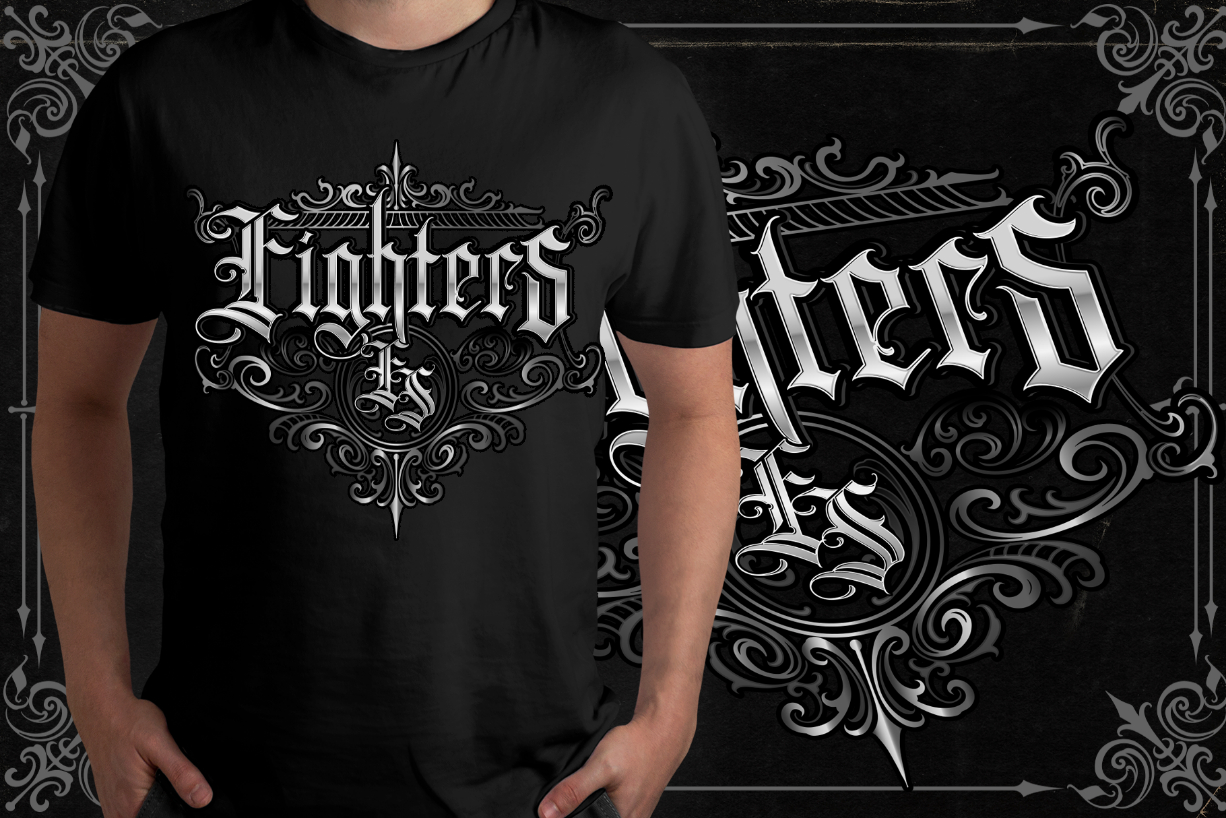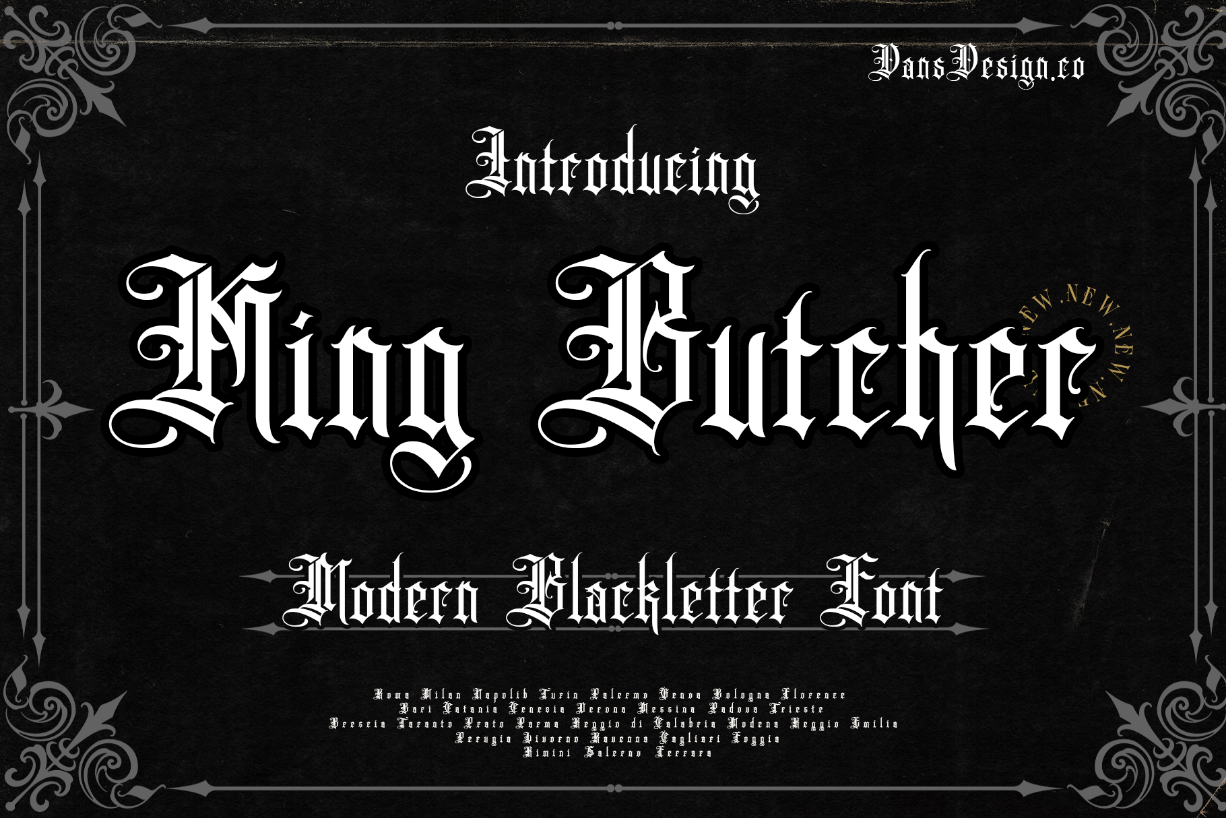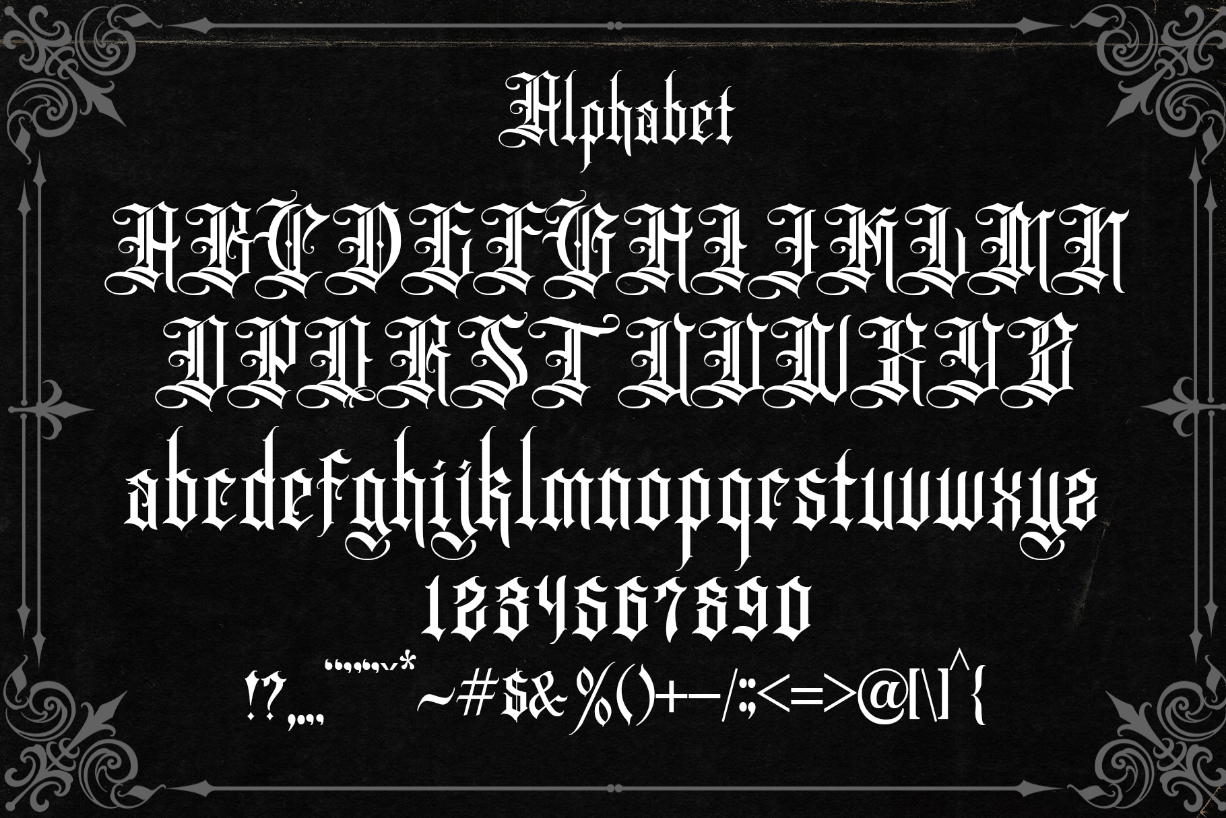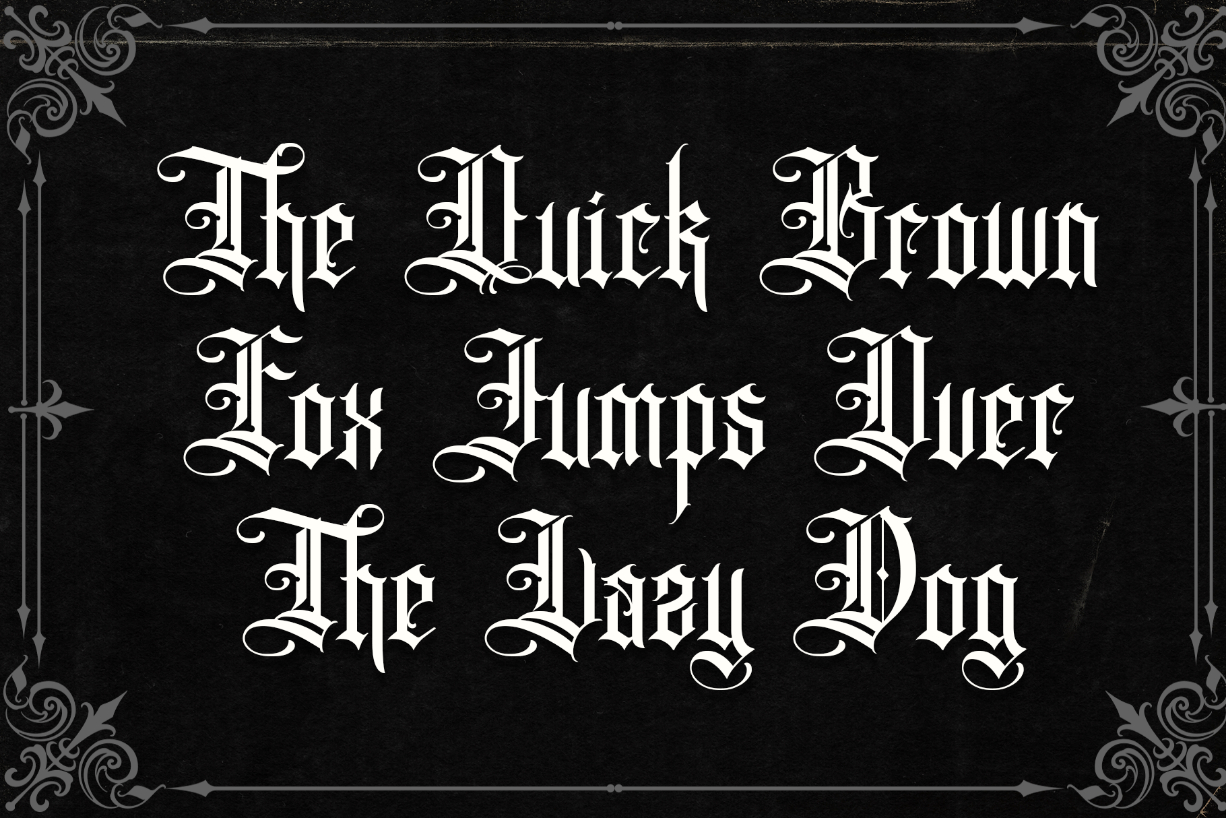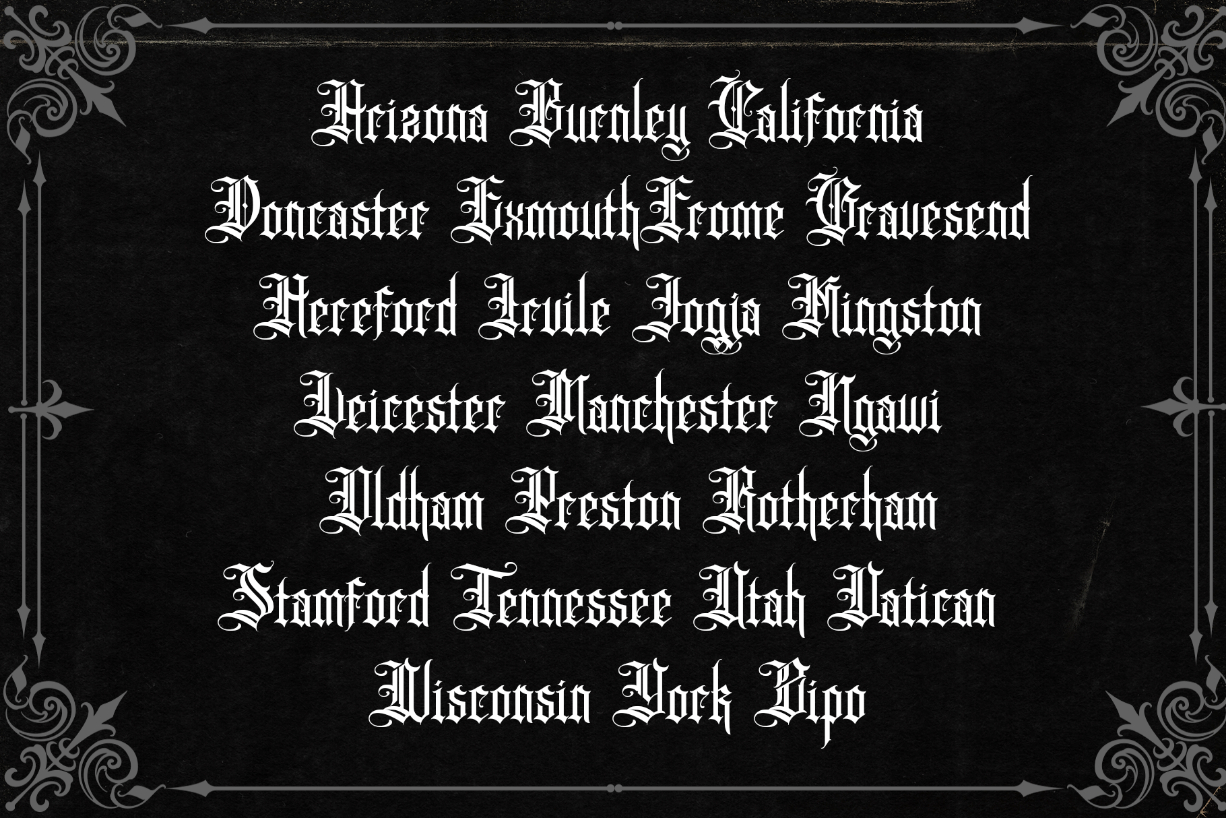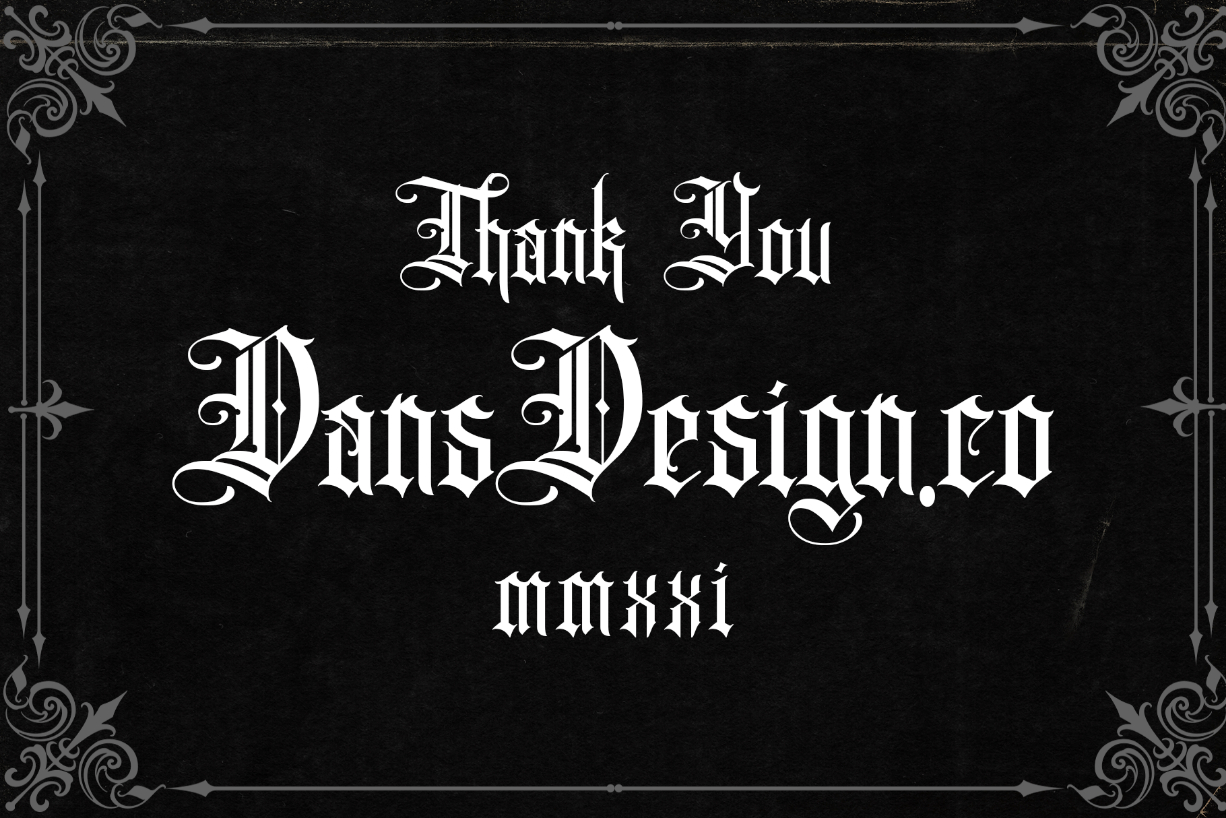
King Butcher Font
About King Butcher Font
King butcher is a splendid blackletter font, perfectly designed to stand out and impress! Use it in your most creative ideas, and watch how it takes them to the highest levels!